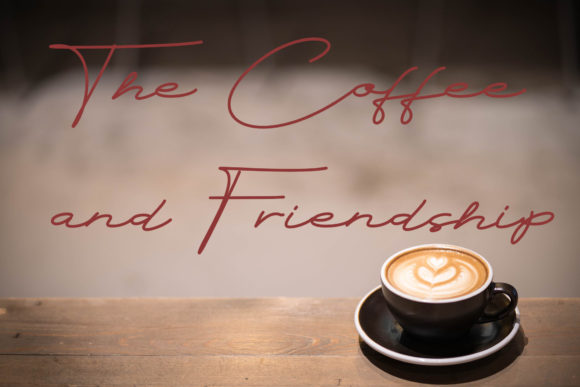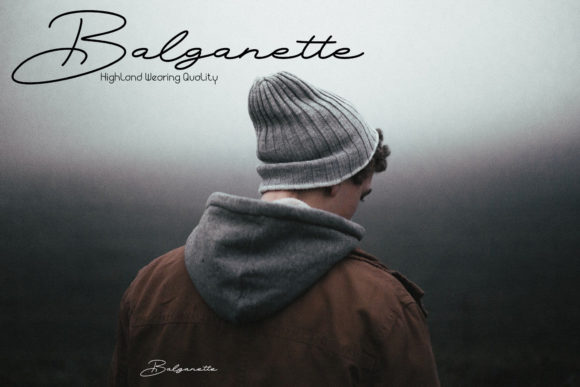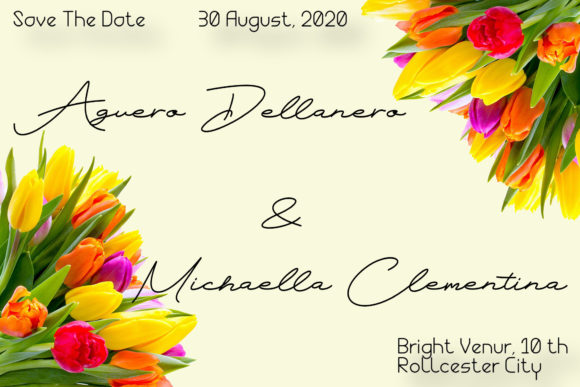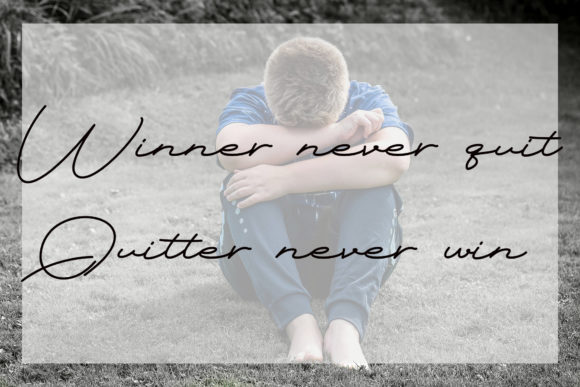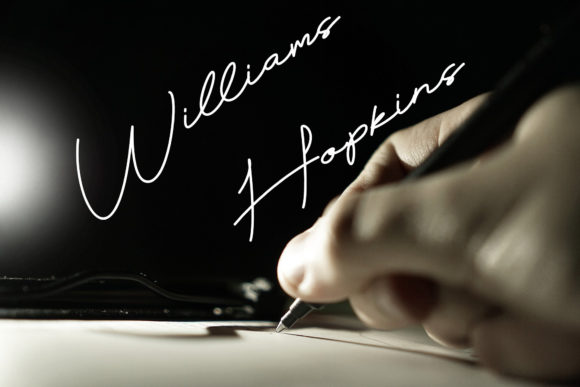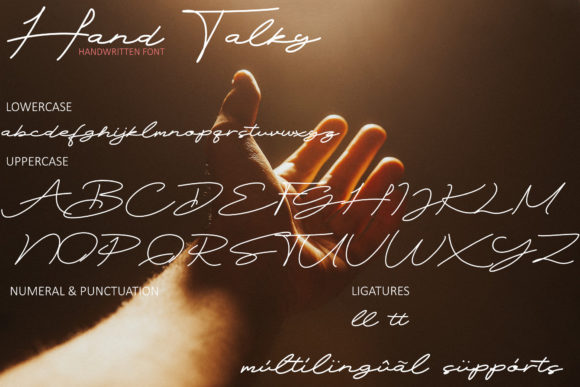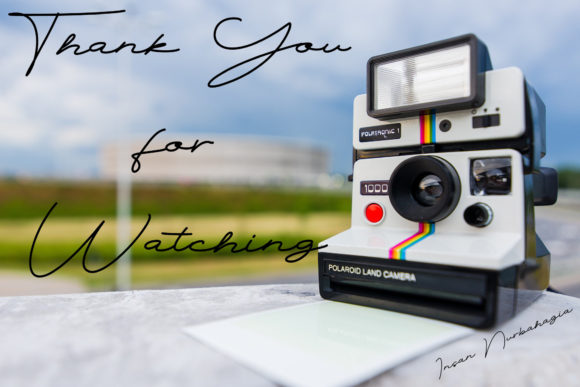
Hand Talky Font
About Hand Talky Font
“Hand Talky” is an elegant and flowing handwritten font that exudes a timeless charm. Its versatility allows it to be used in a wide range of design projects, enhancing each one with its unique and graceful style. Here are some creative ideas to showcase the beauty of “Hand Talky” and make the most of its distinctiveness:
1. Wedding Invitations: Design romantic and sophisticated wedding invitations using the “Hand Talky” font to add a touch of elegance and personalization.
2. Greeting Cards: Craft heartfelt and artistic greeting cards for various occasions, showcasing the font’s flowing and graceful characters.
3. Quotes and Typography Art: Create typography art with inspiring quotes and phrases, emphasizing the font’s elegant and expressive nature.
4. Logo Design: Use the font to design unique and memorable logos, infusing them with a handcrafted and elegant appeal.
5. Social Media Graphics: Enhance your social media posts and graphics with the “Hand Talky” font to create eye-catching and engaging visuals.
6. Stationery Design: Apply the font to stationery designs, such as letterheads and business cards, to add a touch of sophistication and professionalism.
7. Blog Graphics: Use the font in blog post graphics to maintain a consistent and visually appealing brand identity.
8. Book Covers: Design captivating book covers with the font, suitable for both fiction and non-fiction genres.
9. Event Invitations: Create beautiful event invitations that capture the essence of the occasion with the font’s elegant and flowing style.
10. Packaging Design: Apply the font to product packaging for a refined and artisanal touch, perfect for handmade or luxury goods.
11. Art Prints: Design art prints featuring the font to add a touch of elegance and charm to home decor or as gifts.
12. Magazine Layouts: Use the font in magazine layouts and editorial designs to bring a sense of grace and sophistication to the content.
“Hand Talky” is a font that speaks to the heart with its flowing and elegant strokes. It has the power to elevate your favorite projects, infusing them with a timeless and distinctive style that will captivate your audience. Embrace the beauty of “Hand Talky” and let it guide you in creating spectacular designs that stand out with grace and charm.